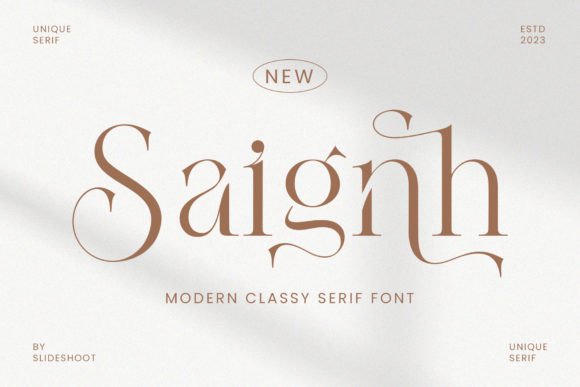
Introducing Saignh Font – the perfect serif font for UI design created by Slide Shoot. Saignh Font is more than just a font; it's a statement of sophistication and elegance that will elevate your designs to the next level. With its clean and simple letters, delicate curves, and subtle serifs, Saignh Font is perfect for luxury branding, editorial design, and any project that requires a touch of style and refinement.
When you use Saignh Font, you're not just using a font; you're creating a feeling. The timeless and refined appearance of Saignh Font will make your designs stand out from the crowd and convey a sense of class and luxury to your audience. Whether you're designing a website, app, or print material, Saignh Font will give your project a touch of sophistication that can't be matched by other fonts.
Saignh Font is not just eye-catching, but it's also incredibly versatile. Its bold and elegant appearance is perfect for headlines, while its subtle serifs and delicate curves make it easy to read in longer blocks of text. Whether you're designing for print or digital, Saignh Font is the font for you.